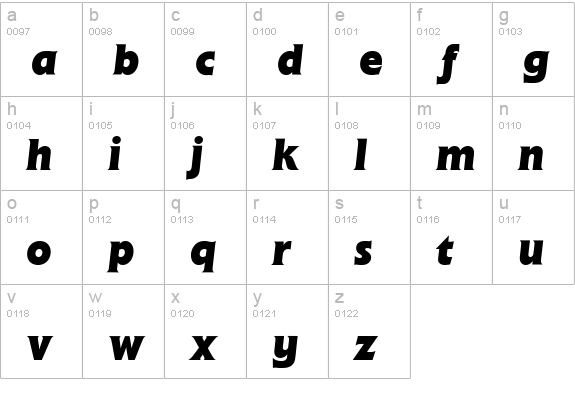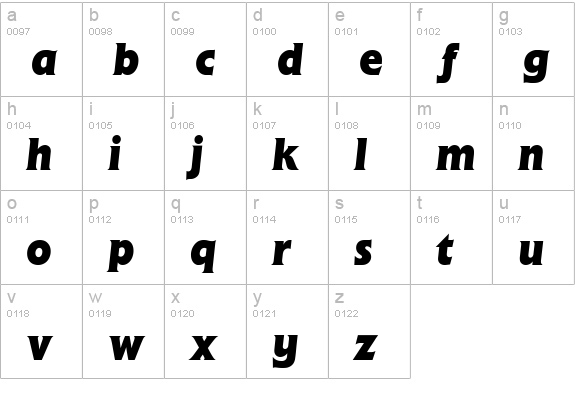
Flange (R) Bold Italic Font Details
Flange (R) Bold Italic is a strong, high-contrast, italic variant in the Flange typeface family \xE2\x80\x94 well suited to headlines, attention-grabbing titles, and strong calls-to-action.
Flange (R) Bold Italic font exudes a bold and dynamic presence with its unique blend of sharp edges and sleek curves. This striking typeface is perfect for making a statement in headlines, titles, and branding materials. The bold weight commands attention, while the italic styling adds a touch of elegance and sophistication. What sets Flange (R) Bold Italic font apart is its versatility - it can be used in a variety of design projects, from posters to logos to packaging. The distinctive design of the letters ensures that your message will stand out and leave a lasting impression on viewers. Best of all, Flange (R) Bold Italic font is available for free download at FontsMarket.com. This means that you can easily access this eye-catching typeface and incorporate it into your projects without any cost. Don't miss out on the opportunity to enhance your designs with the bold and italic charm of Flange (R) font!